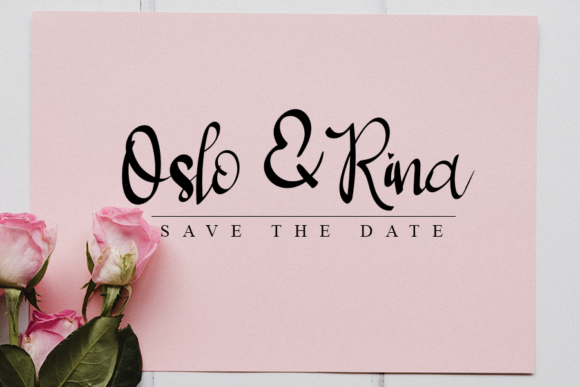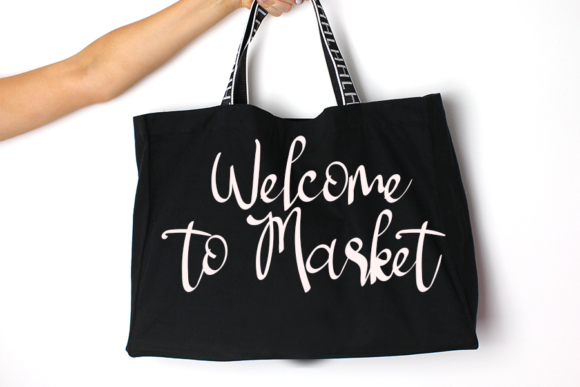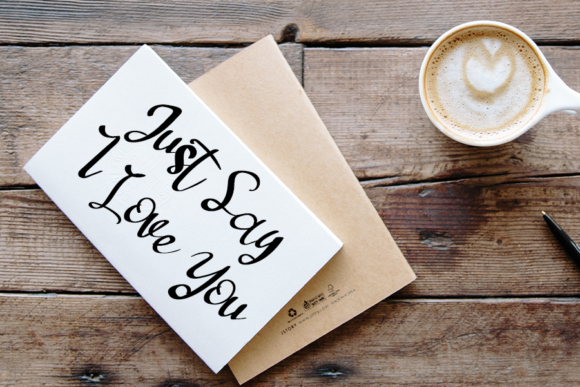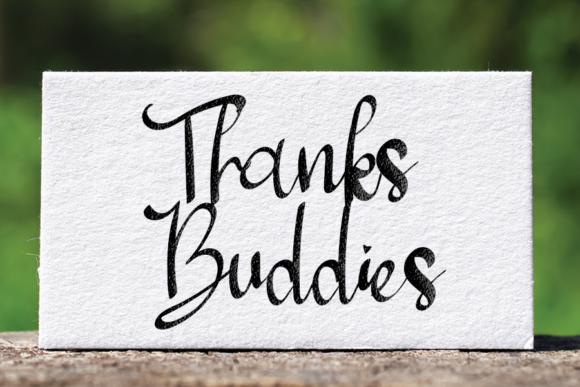
Gillter Signature Font
Gillter Signature is a stunning handwritten font that exudes elegance and sophistication. With its sleek and refined style, this font is perfect for adding a touch of class to your creative projects.
The smooth and flowing characters of Gillter Signature create a sense of grace and beauty, making it ideal for logos, branding, invitations, and other designs that require a touch of luxury. Whether you’re designing wedding stationery, elegant signage, or stylish packaging, this font will add a sense of refinement and professionalism.
The versatility of Gillter Signature allows it to be used in various contexts and themes. Its sleek and elegant style complements both modern and classic designs, adding a timeless touch to your creations. From fashion and beauty to lifestyle and luxury, this font will elevate your projects and make them stand out.
With Gillter Signature, you have the freedom to explore your creativity and bring your ideas to life. Its handwritten nature adds a personal and authentic feel to your designs, making them more engaging and relatable to your audience.
Additionally, the sleek and elegant style of Gillter Signature makes it a great choice for various mediums, including print and digital. Whether you’re designing for social media, websites, or print materials, this font will maintain its elegance and legibility across different platforms.
Embrace the sleek and elegant charm of Gillter Signature and let it inspire your creative endeavors. With its refined style and timeless appeal, this font will bring a touch of sophistication to each of your inspired ideas.